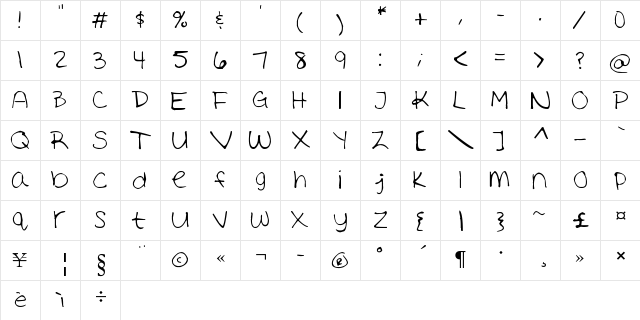
Ashley's Handwriting Regular
Design Context for Ashley's Handwriting Typeface
Ashley's Handwriting flows with the natural rhythm of handwritten lettering, making it ideal for designs that call for warmth and personal expression.
Font Pairing: Combine Ashley's Handwriting with a simple geometric sans for maximum contrast — the tension between flowing curves and clean structure is a classic typographic pairing.
Pro Tip: Pair Ashley's Handwriting with a clean sans-serif for supporting text. The contrast between fluid script and geometric structure creates an elegant typographic hierarchy.